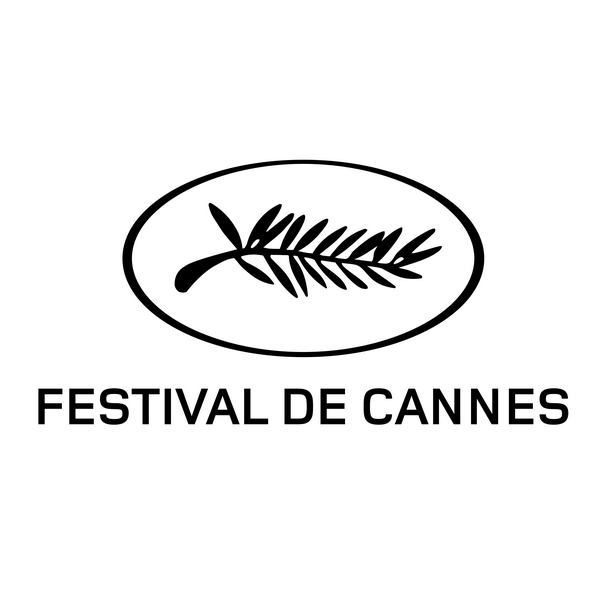
Cannes Film Festival Font
EntertainmentCannes Film Festival is an annual international film festival held in Cannes, France, that showcases new films from around the world and awards the prestigious Palme d'Or to the best film. It is one of the most prestigious and well-known film festivals in the world.
Foundry Monoline Bold, a modern sans-serif font created by FoundryTypes, is used for the logotype of the Cannes Film Festival. This commercial font can be viewed in detail here.